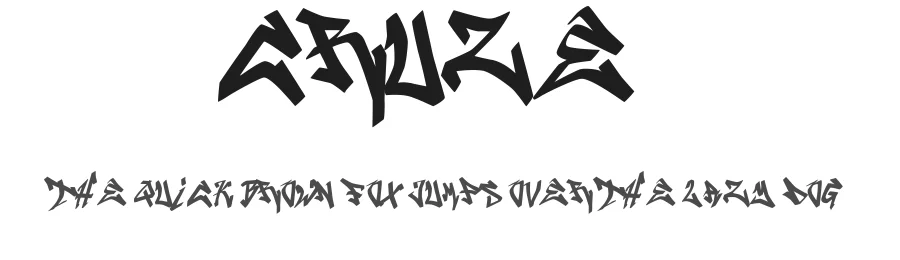
About Cruze Font
Here i did in 2003 a tag-font of my handwriting.
it is just AΒZ and it works just with capslock!
Cruze Font is a script font that shines as a display or heading face. Pair it with a clean sans-serif or serif font for body text β the contrast creates a clear hierarchy while the two styles stay balanced and easy to read.